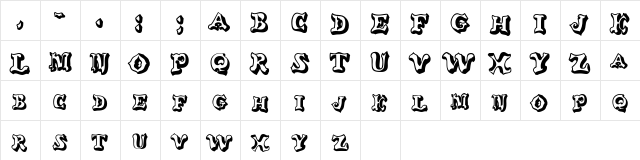
ScaredOfShadowsSCapsSSK Bold
Design Context for ScaredOfShadowsSCapsSSK Typeface
ScaredOfShadowsSCapsSSK brings ornamental detail and strong personality to headlines and identities, where visual impact matters more than quiet functionality. Its bold stroke weight gives it real presence on the page.
Font Pairing: Pair with a clean neutral sans-serif for body copy to let ScaredOfShadowsSCapsSSK's character lead without overwhelming the composition.
Pro Tip: Use ScaredOfShadowsSCapsSSK exclusively at display sizes — it was designed to be seen, not read at length. Let a neutral companion handle body copy.